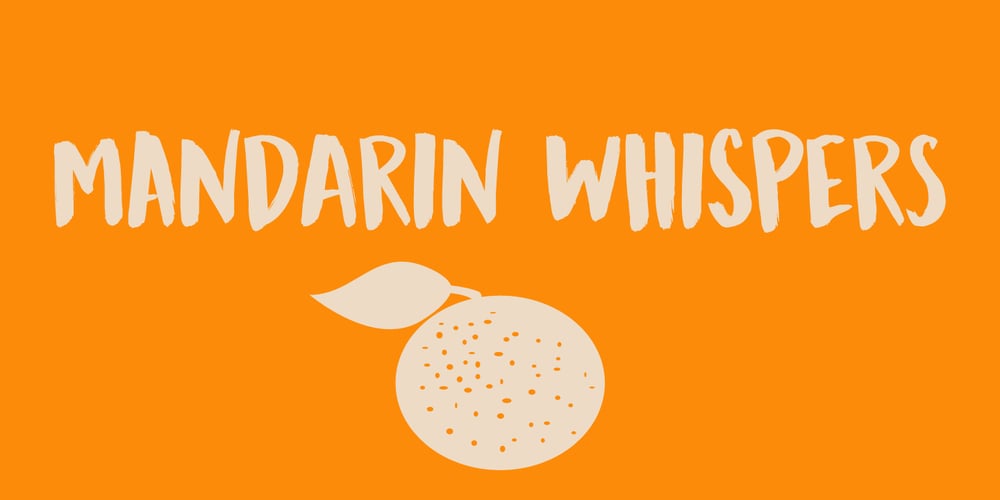
Mandarin Whispers Font Family was designed by David Kerkhoff and published by Hanoded. Mandarin Whispers contains 2 styles and family package options. In Dutch, a Mandarijn is a Tangerine. I found out that it is called a Mandarin in Australia as well! I really like Mandarins, so I thought I’d give them their well-deserved place in the spotlights by naming a font after them. The whispers part – well, that’s just because it sounded good. Mandarin Whispers is a very nice brush font, which was actually not made with a brush, but with a cheapie marker pen. It comes with all the bells & whistles, so have a ball!